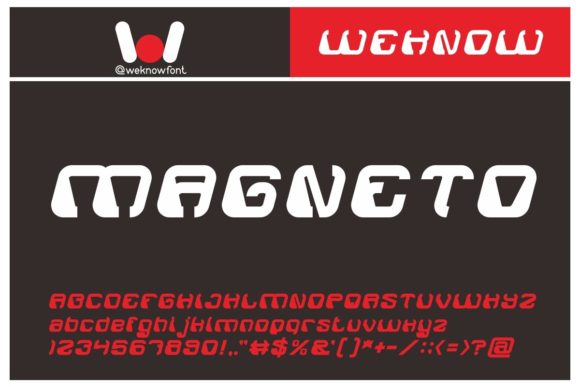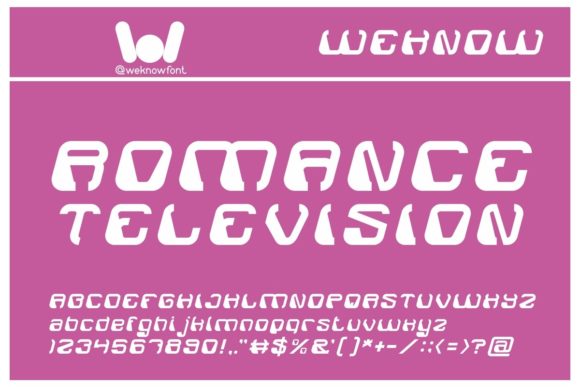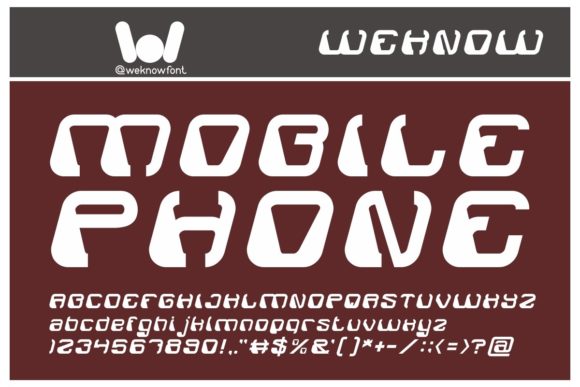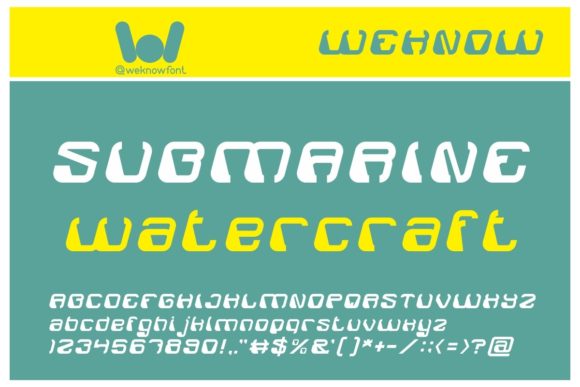
The Spark of Creativity: Unlocking the Power of Electro Magnet Font
Have you ever sat in front of your computer, staring at a blank canvas, and suddenly, a burst of inspiration hits you? The ideas start flowing, and you know exactly what you want to create. This is the moment when creativity sparks, and the possibilities are endless. For designers, this moment is what drives us to push the boundaries of art and design.
One font that can help you tap into this creative spark is the Electro Magnet Font. This bold, techno-inspired display font is perfect for adding a touch of edginess to your posters, flyers, and prints. With its cool and futuristic vibe, Electro Magnet Font is a valuable asset for any designer looking to add some excitement to their designs.
Electro Magnet Font Key Features
- Font Family: Electro Magnet Font is a modern sans-serif font family with a unique blend of geometric and organic elements.
- Unique Characteristics: The font features a distinctive electro-magnetic-inspired design, with sharp lines, rounded edges, and a futuristic aesthetic.
Electro Magnet Font Review
Overall, I think Electro Magnet is a solid font choice for certain projects. Here’s a breakdown of what works well and what doesn’t:
- The font’s unique blend of industrial and futuristic elements gives it a distinctive look that can add some serious visual interest to a design.
- The bold, chunky strokes of the font make it great for headings and titles, where you want to grab the viewer’s attention.
- The font is highly customizable, with plenty of options for adjusting the weight, spacing, and other parameters to get the look you want.
- The font can be a bit overbearing at smaller sizes, so it’s not ideal for body text or other areas where readability is key.
- The unique style of the font may not be to everyone’s taste, and it can come across as gimmicky if overused.
- There are some minor issues with kerning and letter spacing, particularly in certain combinations of characters.
Overall, I think Electro Magnet is a great choice for designers who want to add some edge and sophistication to their work. Just be sure to use it judiciously and balance it with more readable fonts in the right areas.
Tips: Use the Electro Magnet Font to create eye-catching headlines and titles. Experiment with different font sizes and styles to achieve a unique look.
Tips: Use the Electro Magnet Font to create bold and futuristic text effects. Experiment with layer blending modes and opacity to achieve a unique look.
Tips: Use the Electro Magnet Font to create attention-grabbing titles and headings. Experiment with different font sizes and styles to achieve a unique look.
The Electro Magnet Font is ideal for:
- Science fiction and futuristic designs.
- Electronic and technology-related projects.
- Headlines and titles for advertising and marketing materials.
Alternatives to Electro Magnet Font
Fontin Sans
Fontin Sans is a modern sans-serif font designed by Pablo Impallari. It’s ideal for use in digital products, such as websites and apps, where a clean and minimalistic aesthetic is desired. Fontin Sans has a slightly more rounded feel compared to Electro Magnet Font, making it a better choice for designs that require a softer, more approachable look.
Montserrat is a geometric sans-serif font designed by Julieta Ulanovsky. It’s perfect for use in titles, headings, and other text elements where a strong, modern feel is needed. Montserrat has a more angular and condensed feel compared to Electro Magnet Font, making it a better choice for designs that require a bold, urban aesthetic.